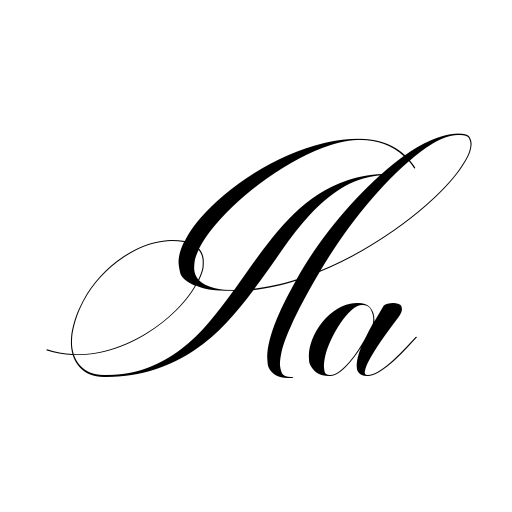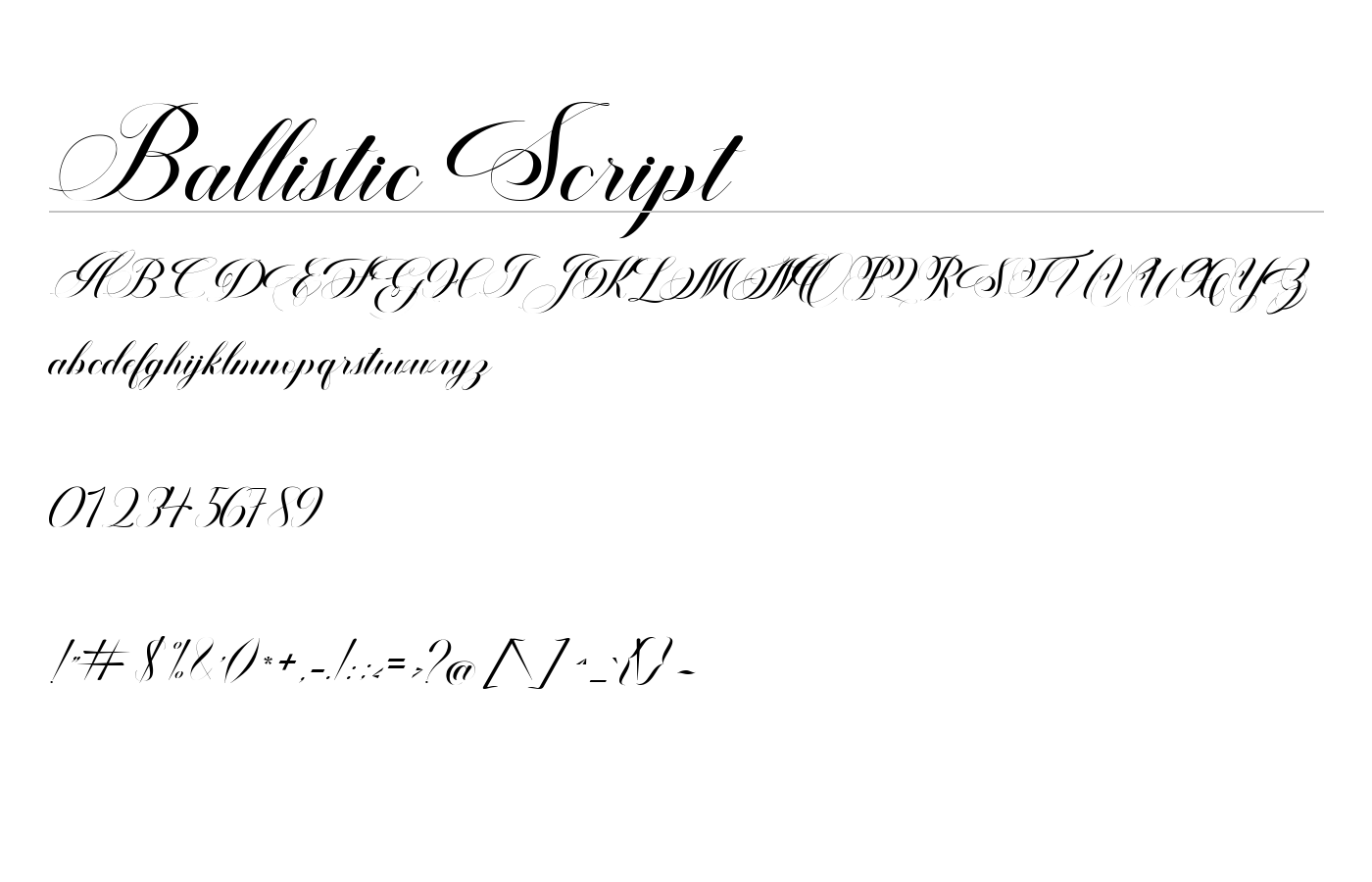
Ballistic Script is an elegant, flowing script font characterized by its thin, graceful strokes and intricate swashes that give it a refined, sophisticated feel. Its delicate, high-contrast lines and detailed uppercase flourishes make it ideal for luxury branding, wedding invitations, and high-end editorial design where a touch of classic elegance and artistry is desired. This font works beautifully in display settings, adding a sense of timeless beauty and sophistication to any project.
Ballistic Script Font
About Ballistic Script Font
| Font family | Ballistic Script Font |
| Designer | RIZA HAITAMI |